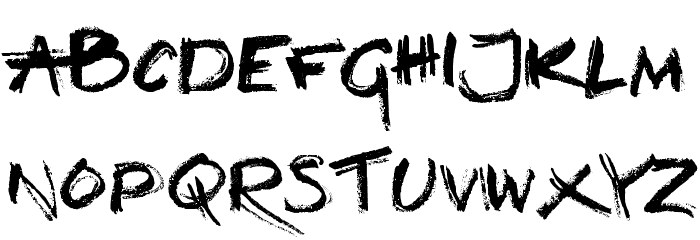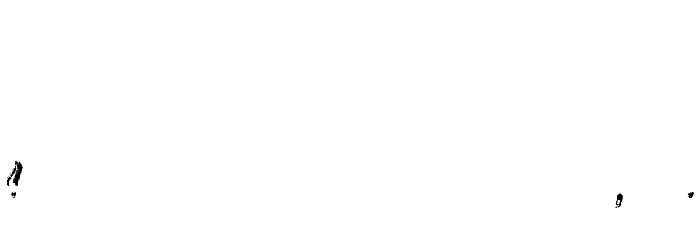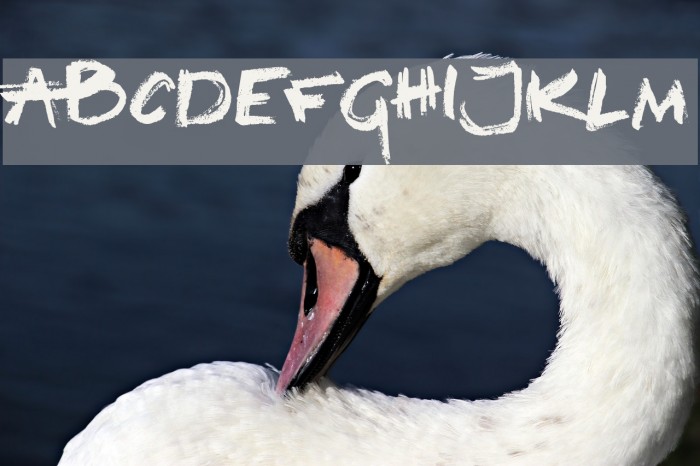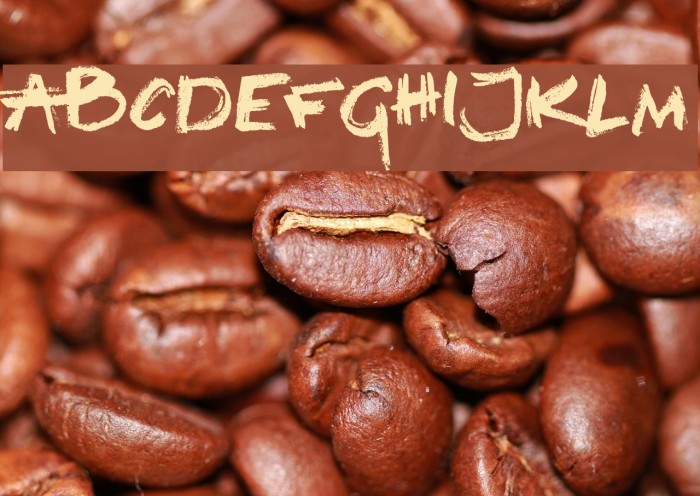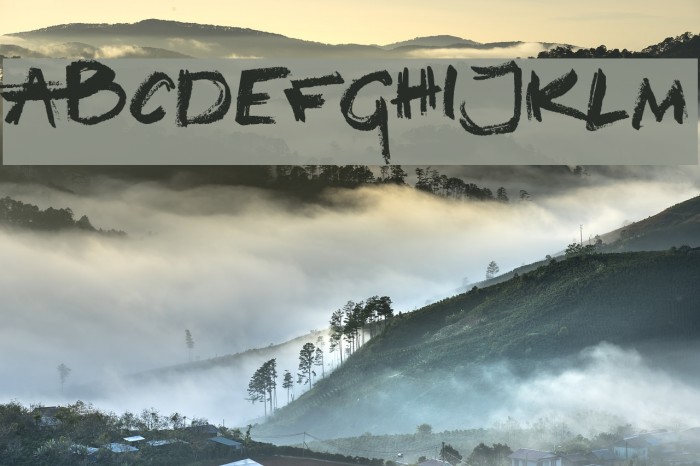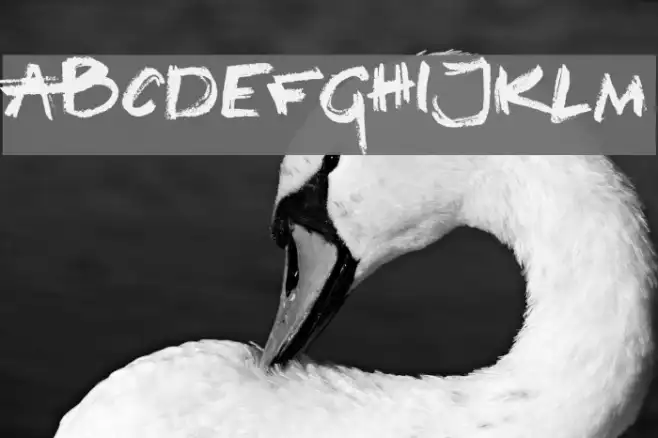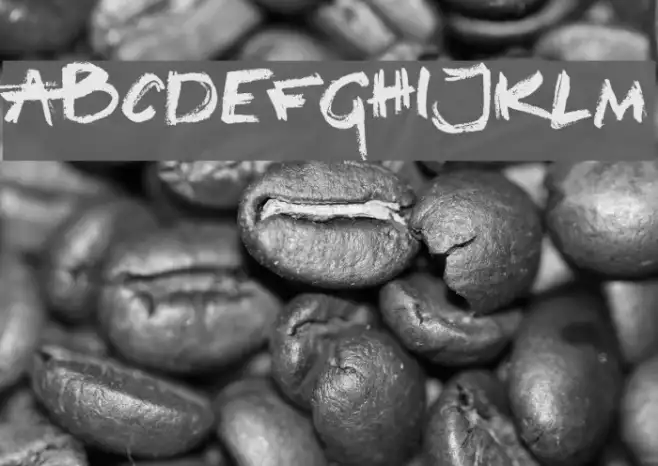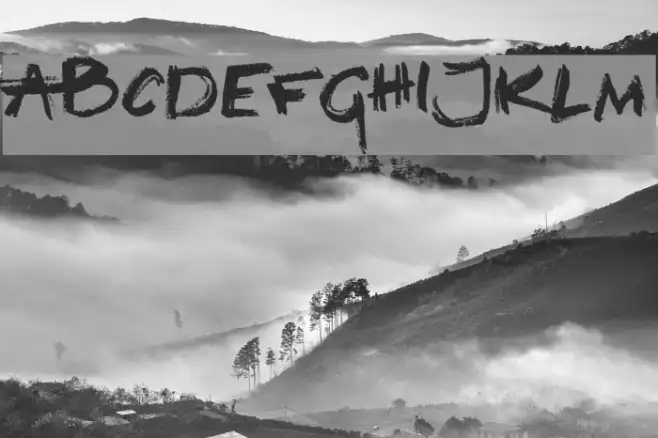
LoudandClear-Regular Font
This font exudes a bold and expressive style, characterized by its brush-like strokes and dynamic energy. The letters have a rough, textured appearance that suggests movement and spontaneity, making it ideal for projects that require a sense of urgency or creativity. The uppercase and lowercase letters maintain a consistent style, with exaggerated angles and a slightly irregular baseline, adding to its handmade feel. The numbers and special characters follow the same aesthetic, ensuring a cohesive look across all text elements.
A bold, brush-style font with dynamic, textured strokes.
- Proposed Projects: Ideal for posters, album covers, graffiti art, and branding that requires a bold, artistic touch.
- Overall Style: Modern, Artistic